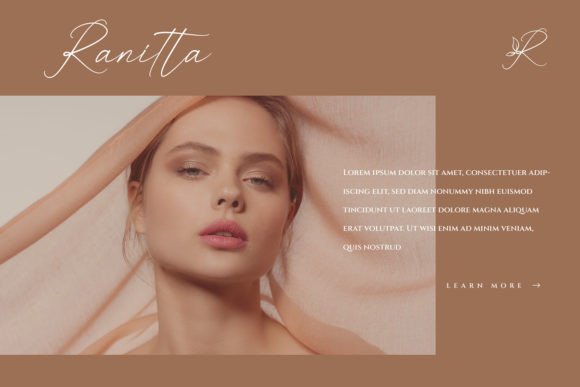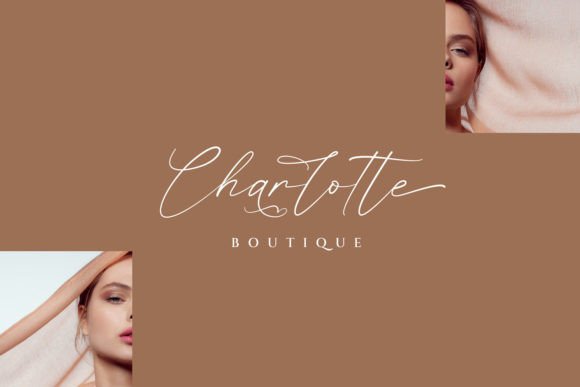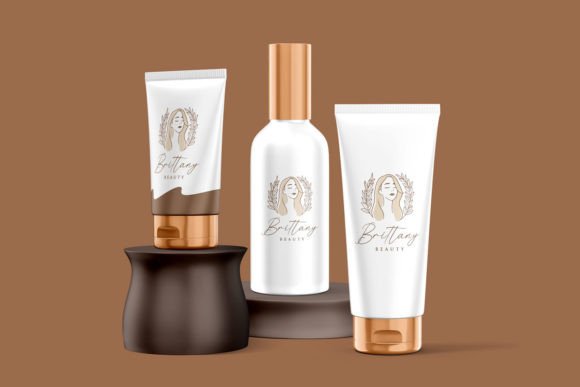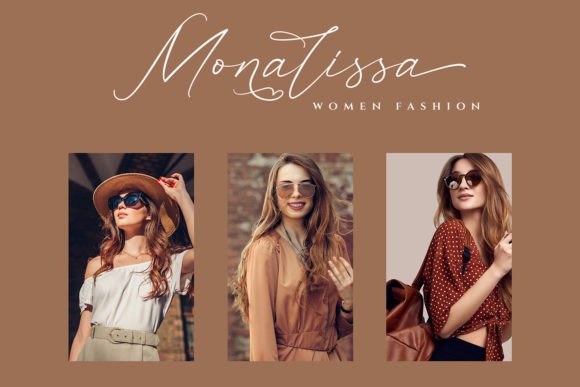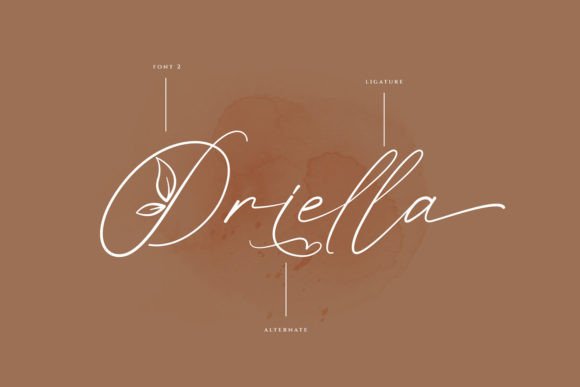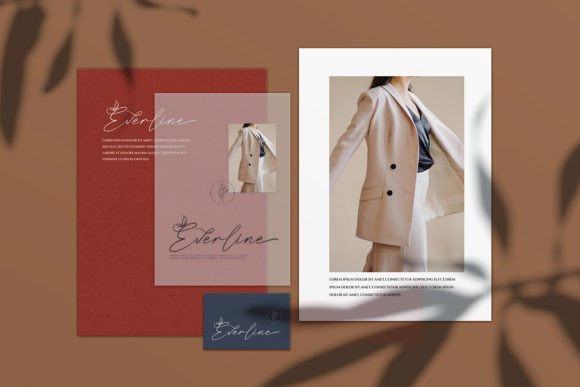
Introduction to Oriella Font
Oriella is a unique and interesting handwritten font.
Incredibly versatile, this font will fit a wide pool of designs Fall in love with its incredibly stylish look and use it to create spectacular designs.
Oriella Font offers exceptional quality and versatility, making it a valuable addition to your design toolkit. Whether you’re creating for personal projects or commercial use, Oriella Font delivers professional results.